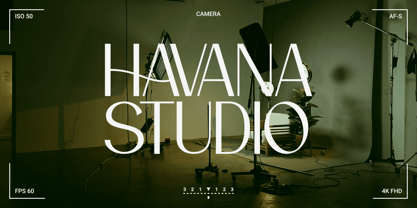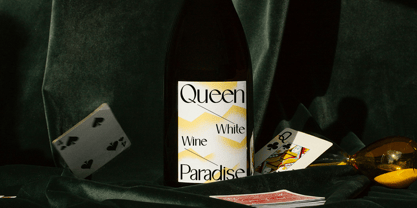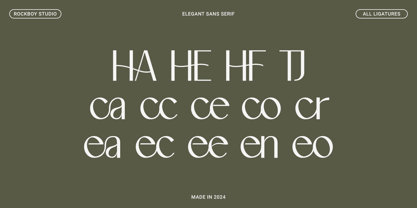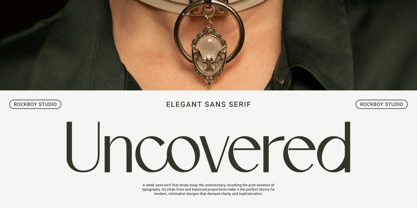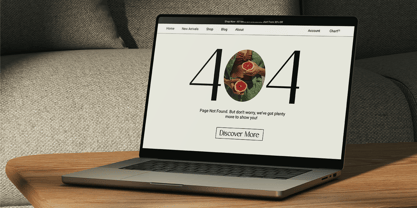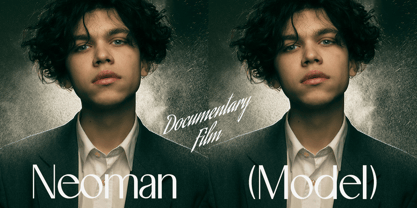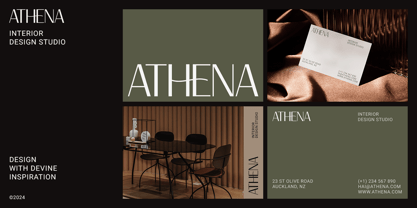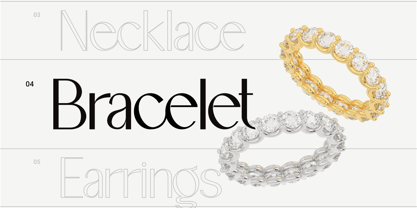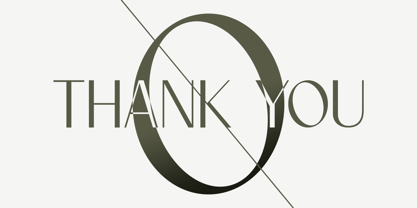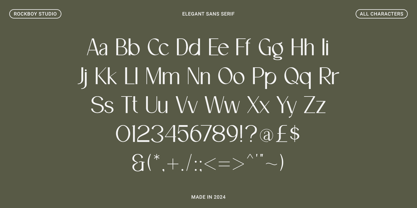
Uncovered
by Rockboys Studio
The Uncovered Font Family was designed by Hayinah and published by Rockboys Studio. Uncovered contains 1 styles. More about this family
Uncovered is a sleek sans serif typeface characterized by its modern and stylish design. Its clean lines and balanced proportions make it suitable for contemporary branding, editorial design, and digital applications. With a minimalist aesthetic, Uncovered offers versatility and readability, making it ideal for both headings and body text. The typeface often features subtle geometric influences and refined details, providing a sophisticated yet approachable appearance.
Designers: Hayinah Hayinah
Foundry: Rockboys Studio